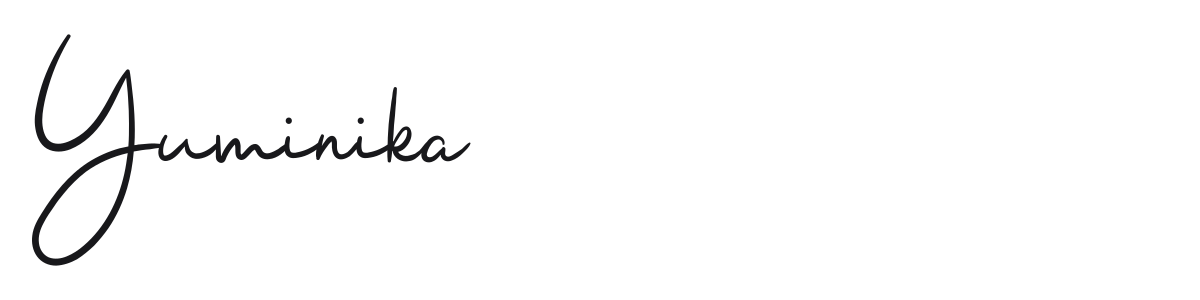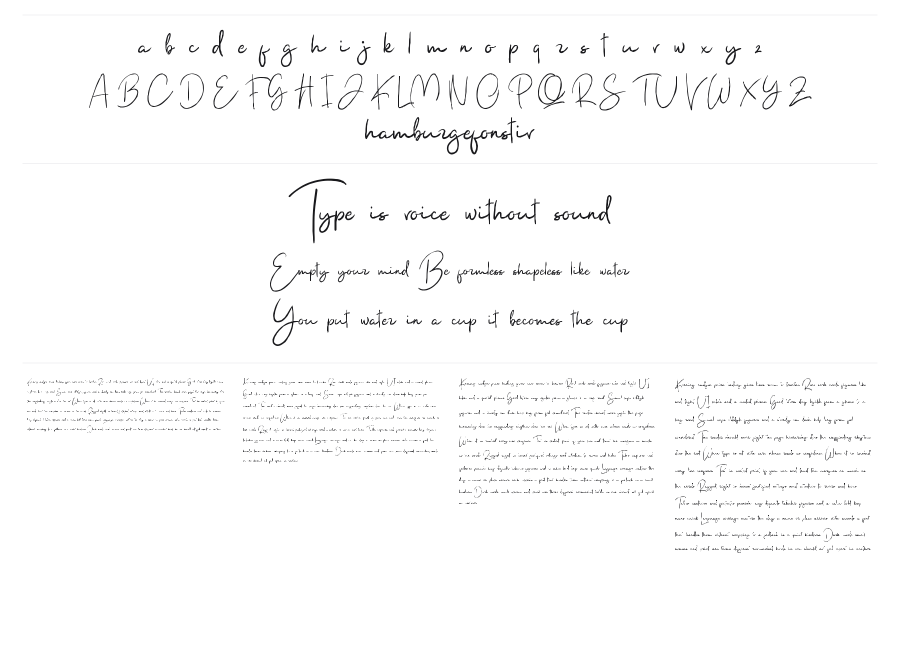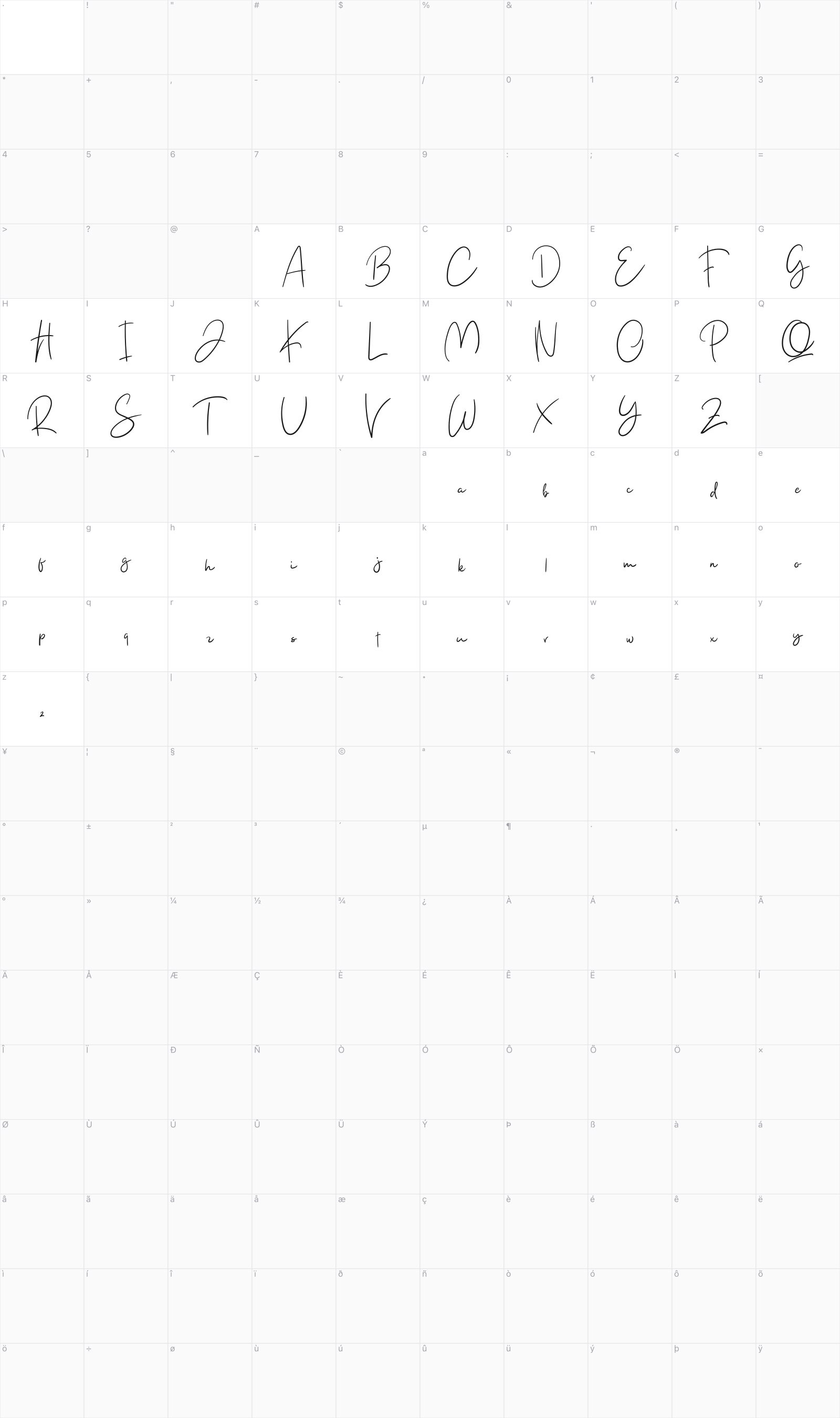
Yuminika
Yuminika is a flowing casual script with thin, connected strokes and a loose, natural rhythm. Its sweeping loops and variable baseline give it the feel of confident freehand lettering rather than formal calligraphy. Great for brand names, packaging, and anything that needs a warm, approachable handwritten quality.